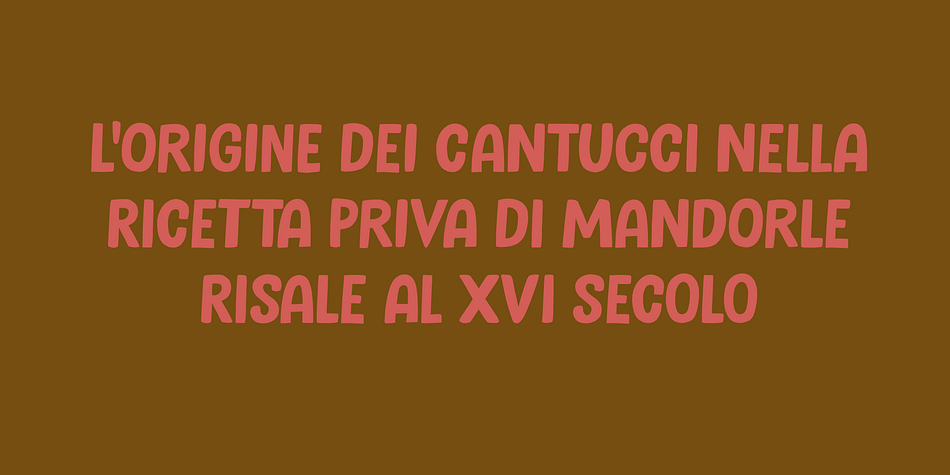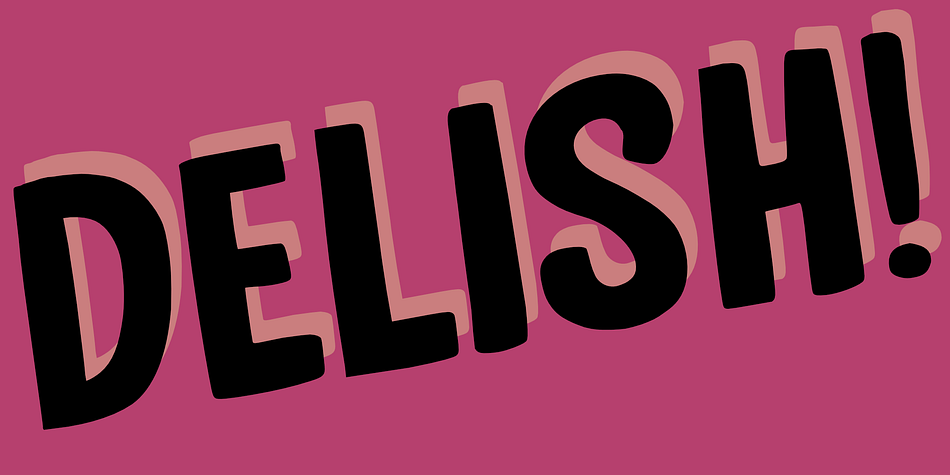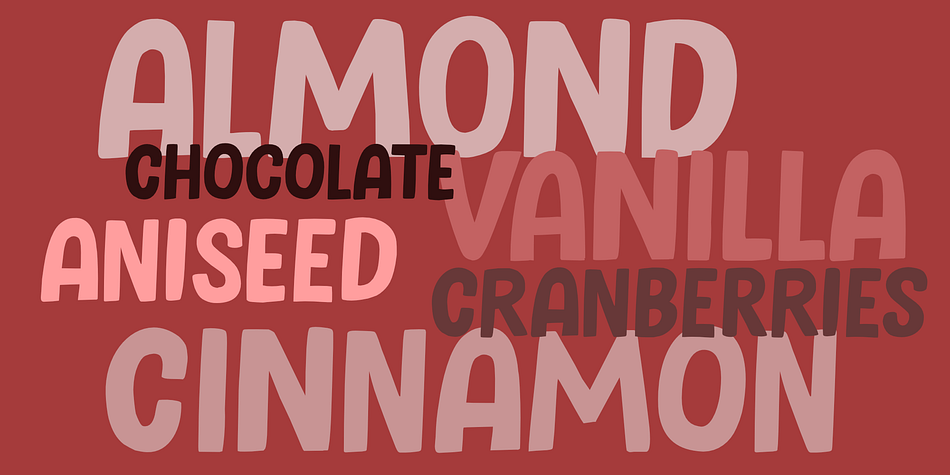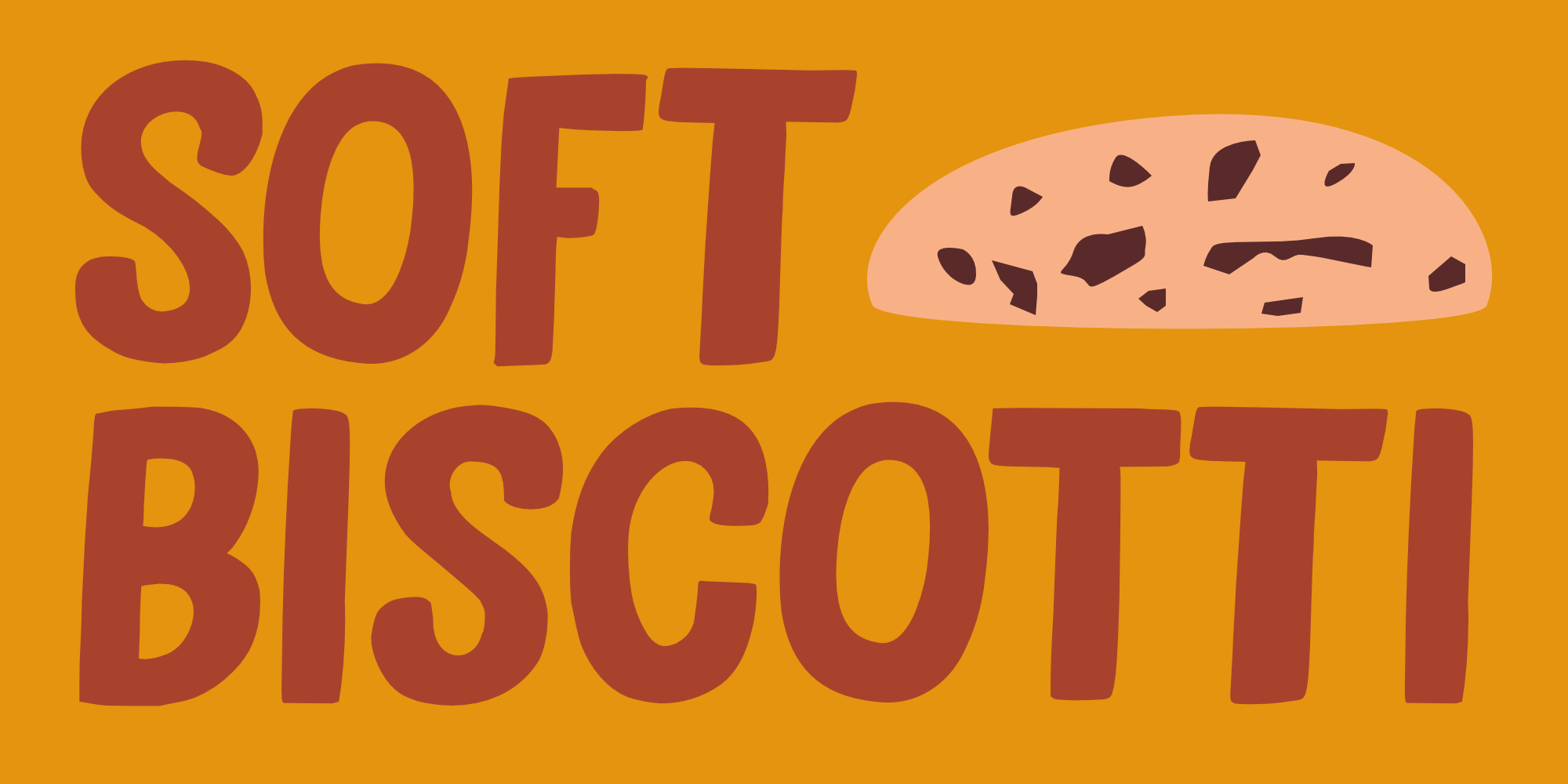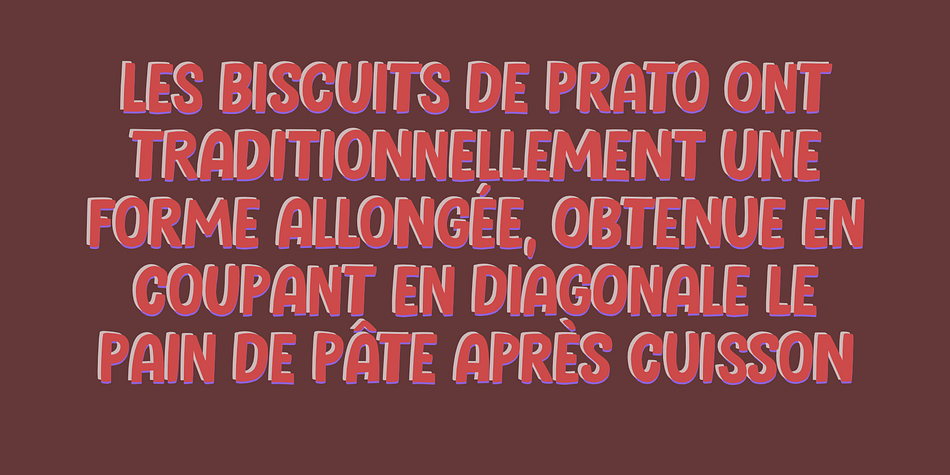
Soft Biscotti
Soft Biscotti is a hand drawn and kids font family. This typeface has two styles and was published by Kitchen Table Type Foundry.
I just love biscotti; they’re one of my favourite cookies! I thought they were all rock hard and half-moon shaped, but I found out that there’s a ‘soft’ variety as well, mainly aimed at young children who may have trouble munching on the hard cookies.
Soft Biscotti is a handmade, all caps font. It comes with extensive language support and a set of alternates for the lower case letters.